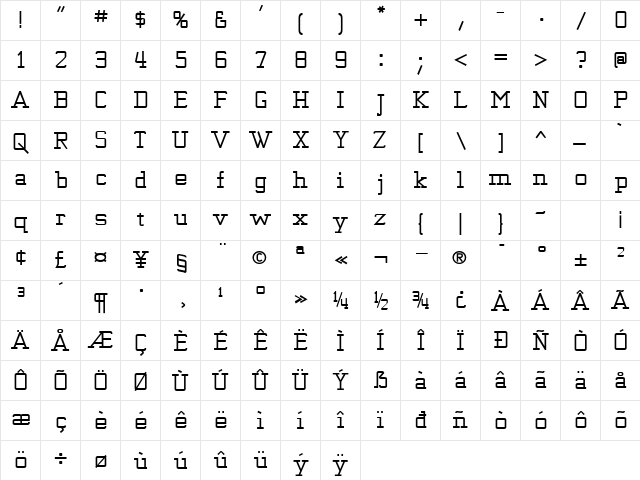
KwersityWider Bold
Design Context for KwersityWider Typeface
KwersityWider takes a measured approach to typography — its balanced proportions and neutral character make it a reliable workhorse for both digital and print work. Its bold stroke weight gives it real presence on the page.